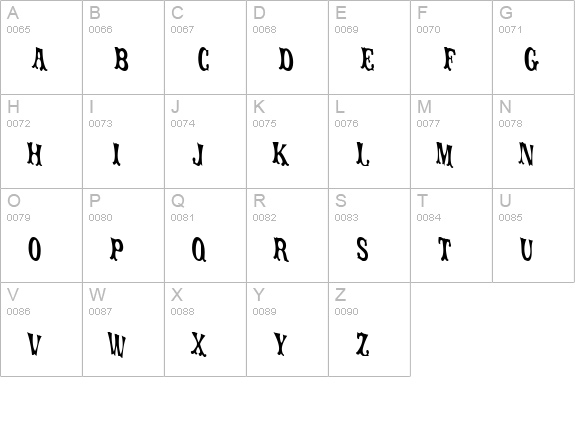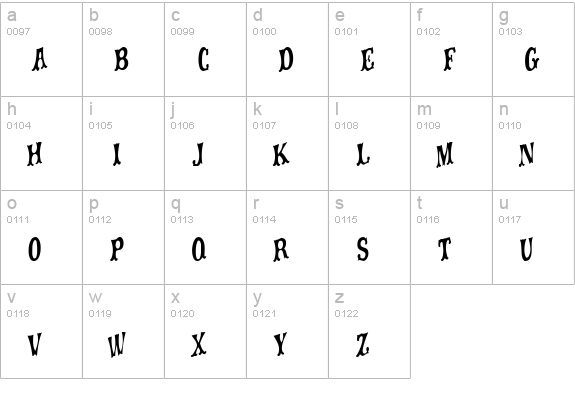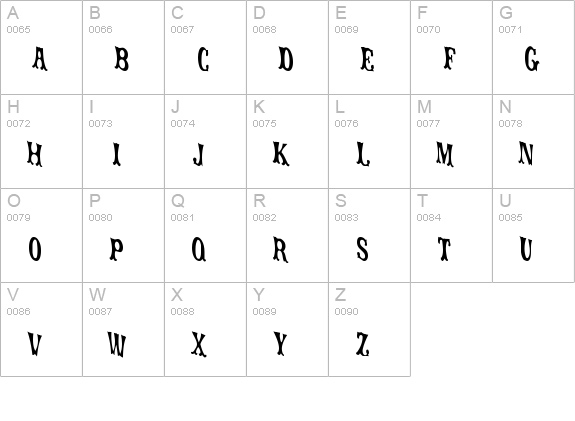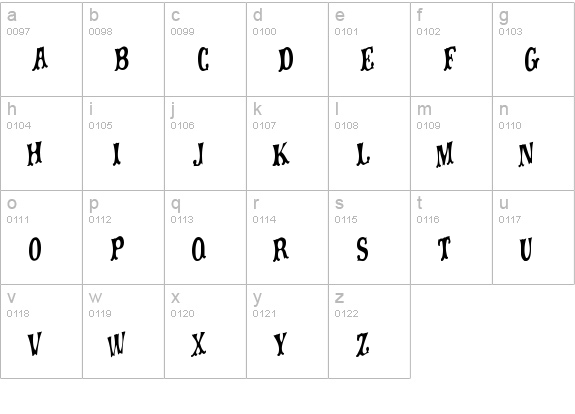
movieola titletype Font Details
"Movieola Titletype Font is a stylish and versatile typeface that captures the essence of classic Hollywood glamour and sophistication. With its elegant and timeless design, this font is perfect for adding a touch of class to any project, whether it's a movie poster, title sequence, or branding materials. The Movieola Titletype Font is freely available to download at FontsMarket.com, making it easy for designers and creatives to access this high-quality font for their projects. With its sleek lines and classic typography, this font is sure to elevate any design and bring a touch of old-school charm to your work. Whether you're looking to create a vintage-inspired design or add a touch of elegance to your project, Movieola Titletype Font is the perfect choice. Download it for free today at FontsMarket.com and start creating stunning designs that stand out from the rest."